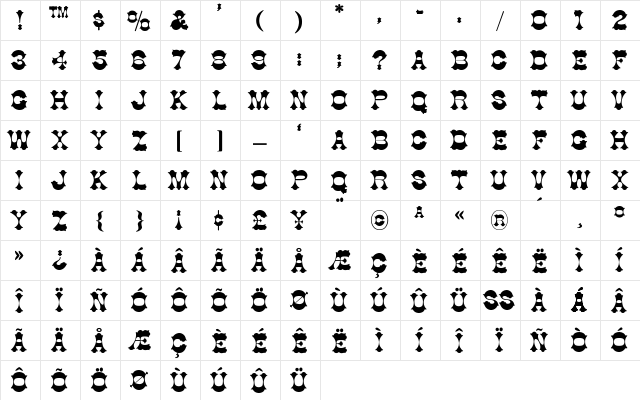
Edweard Semi-Bold Regular
Design Context for Edweard Semi-Bold Typeface
Edweard Semi-Bold is a composed and adaptable typeface that performs quietly and consistently across a wide range of design contexts. Its bold stroke weight gives it real presence on the page.